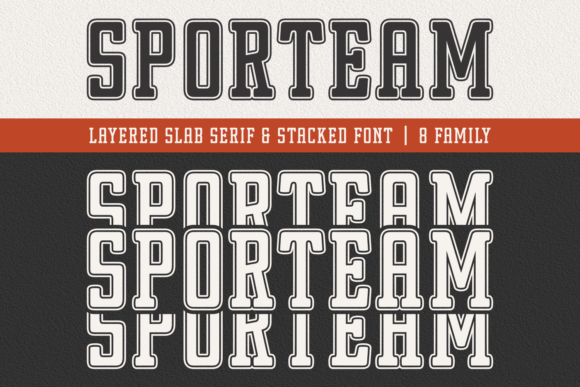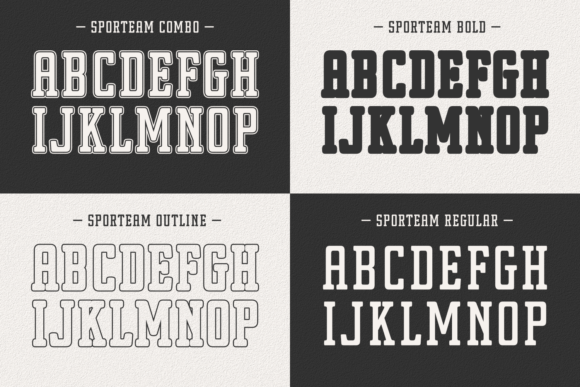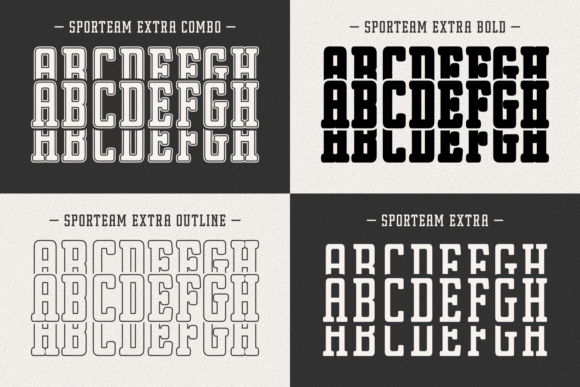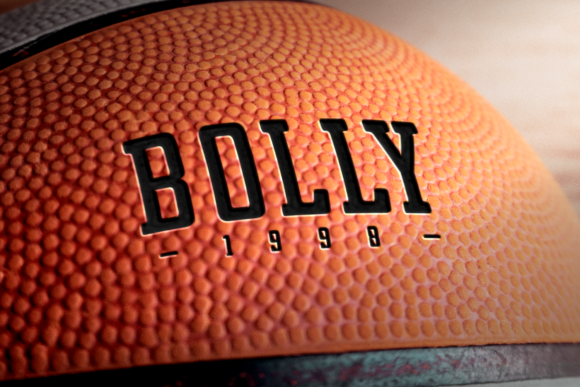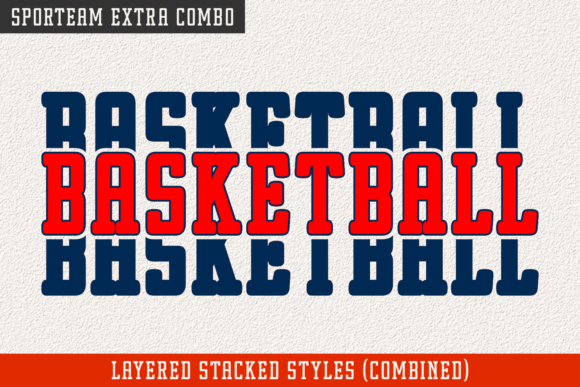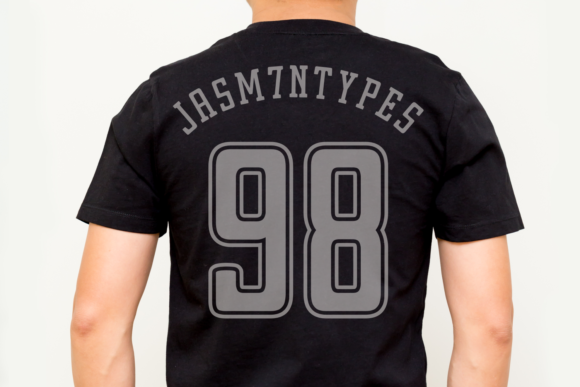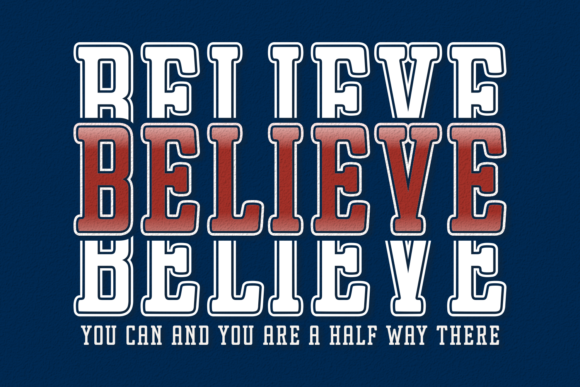
Sporteam
Monolisting: A Simple and Neat Slab Serif Font
Monolisting is a distinctive slab serif font that combines simplicity with a neat aesthetic. This versatile typeface is easy to use in many different projects.
Key Features of Monolisting
• Simple Design: Uses clean and clear letterforms for easy reading.
• Neat Look: Offers a tidy and organized style for various uses.
• Slab Serif Structure: Has the thick, square serifs typical of slab serif fonts.
• Flexible Use: Works well in many types of projects.
• Eye-Catching Quality: Helps make creative ideas stand out.
Best Uses for Monolisting
Monolisting works especially well for:
• Modern branding and logo design
• Clean website layouts
• Business cards and stationery
• Magazine and editorial designs
• Product packaging aiming for a sleek look
When using Monolisting in your designs, consider these ideas:
• Use for both headlines and short text to show off its simple style
• Try different sizes to highlight the font’s clean details
• Pair with simple sans-serif fonts for body text to create contrast
• Take advantage of its flexibility across various themes in your projects
Monolisting is a great choice for designers who want a simple and neat slab serif font. It can improve many types of design projects. Whether you’re working on logo designs, creating layouts for modern websites, or making content that needs a clean look, Monolisting offers both simplicity and versatility.
Moreover, adding Monolisting to your projects can make your designs look better. From clear headlines to attractive branding, this font helps create memorable typography. It appeals to people who like a modern and clean style. Additionally, it’s flexible enough for various uses, from vintage-inspired designs with a modern twist to fun layouts that need a touch of neatness.
Furthermore, Monolisting adapts well to different moods. It can create a magical atmosphere or aim for a more thoughtful mood in your designs. Its flexibility allows it to work in both modern, minimalist projects and themed designs that need a clean, current look. Lastly, for those wanting to add a touch of simplicity with a timeless feel, this font can even enhance vintage-inspired creations with a unique, modern twist.